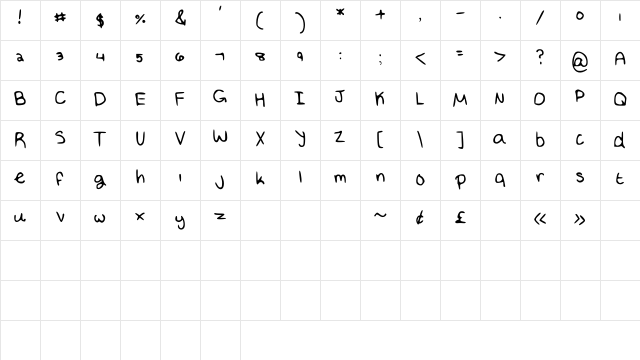
EATMYEGGROLLS Medium Free Font
EATMYEGGROLLS Medium
Design Context for EATMYEGGROLLS
EATMYEGGROLLS is a composed and adaptable typeface that performs quietly and consistently across a wide range of design contexts.
Pro Tip: Use EATMYEGGROLLS in both headline and body roles to test its range before committing to a single application.